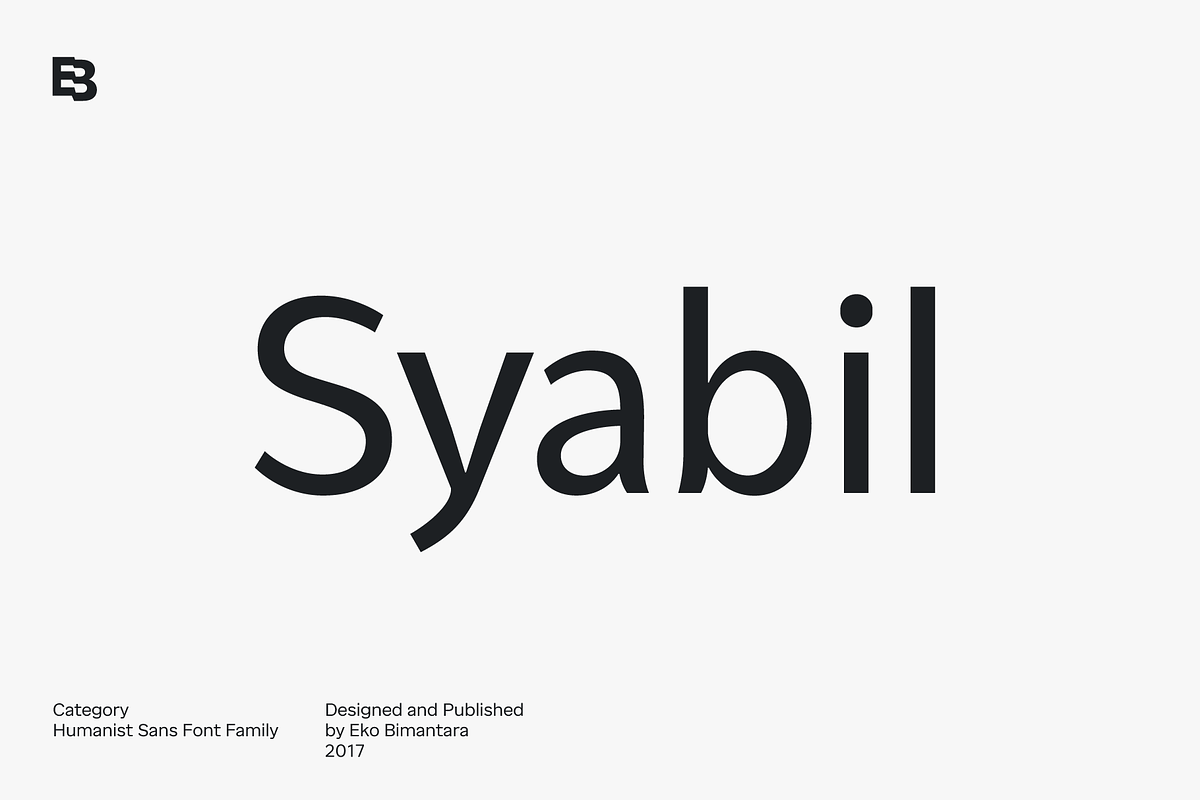
Clean, modern, and versatile—Syabil 18 Sans Serif Font Free Download is the perfect addition to your design toolkit. This font features a sleek, contemporary sans-serif style with 18 different weights, making it ideal for a wide range of projects, from branding and logos to websites and editorial design.
Syabil 18 combines geometric simplicity with professional elegance, providing a clear and crisp appearance in both print and digital formats. It includes uppercase and lowercase letters, numerals, punctuation, and multilingual support—offering plenty of flexibility to experiment with various typographic designs.